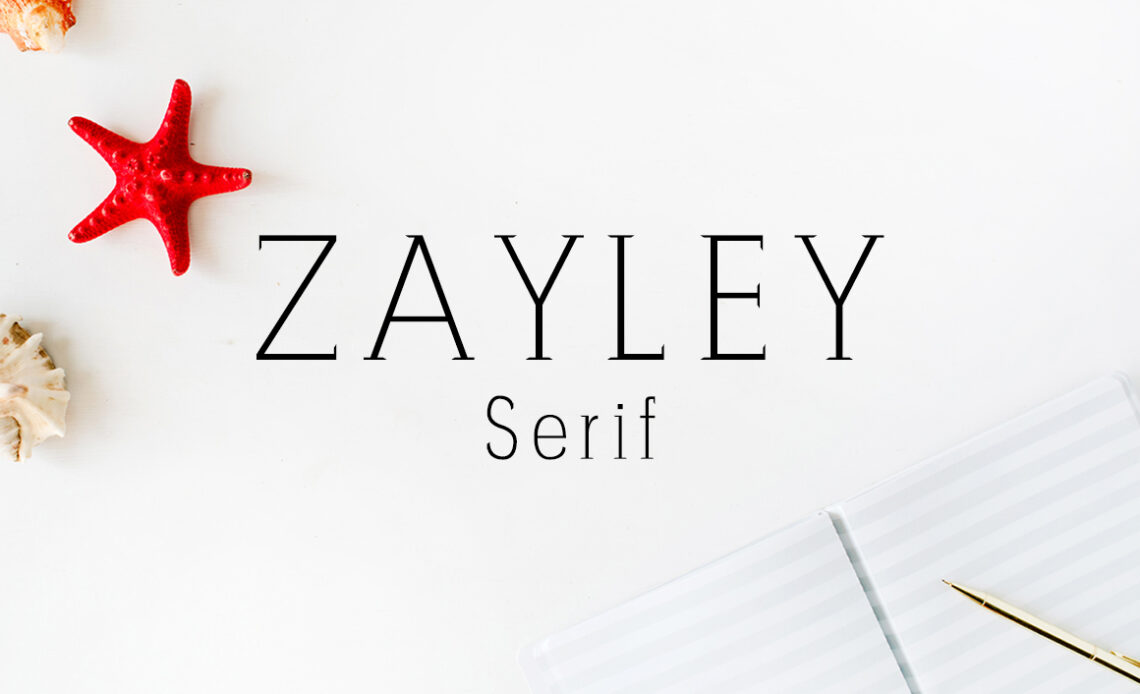
Allow us to introduce Zayley, a breathtaking serif font that dances between classic elegance and modern edginess. This font is not just a font; it's an artistic expression waiting to redefine your creative horizons.
Crafted with meticulous attention to detail, Zayley's curves and flourishes will add a touch of sophistication to your designs. Imagine the allure of a vintage novel cover, the charm of a handwritten letter, or the timeless beauty of a classic movie poster brought to life through the exquisite strokes of Zayley.
Unleash your creativity and explore the endless possibilities Zayley offers. Its versatility shines in both grand headlines and intimate small prints, making it the perfect companion for logos, branding, wedding invitations, posters, and any project that yearns for a touch of timeless elegance.
Step into a world of visual enchantment, where Zayley transforms your words into art. Its wide-set spacing in all caps radiates a classic allure, evoking a sense of sophistication and grandeur. Embrace the beauty of simplicity with its lowercase letters, revealing a timeless charm that transcends trends.
Experience the joy of crafting designs that leave an unforgettable impression. Zayley is the perfect font for creating logos that stand out, brochures that captivate, and social media posts that spark engagement. It's the font that elevates your ideas, allowing your message to resonate with your audience.